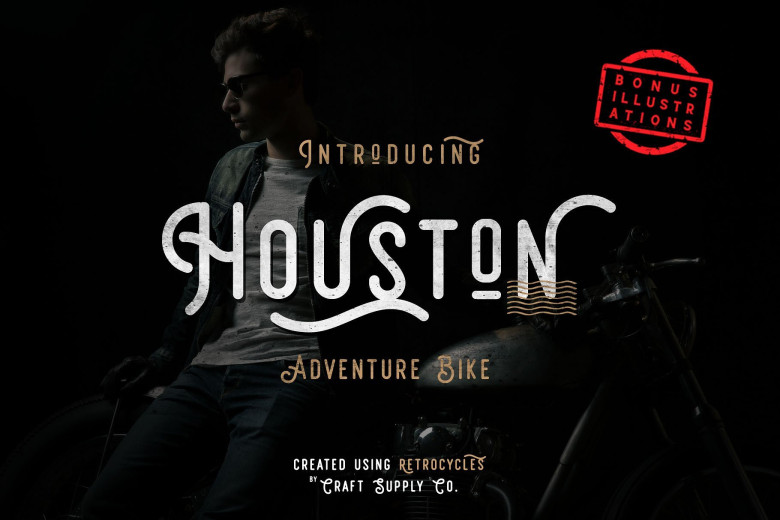
Retrocycles Typeface
Hi designer! If you are designing a logo or any other project, this is a good choice. Introducing Retrocycles Font. It is designed and shared by Craft Supply Co.. You want to make a greeting card or a package design, or even a brand identity, craft design, any DIY project, book title, wedding font, pop vintage design, retro design or any purpose to make your art / design project look pretty and trendy? Feel free to play with all the patterns and shape!